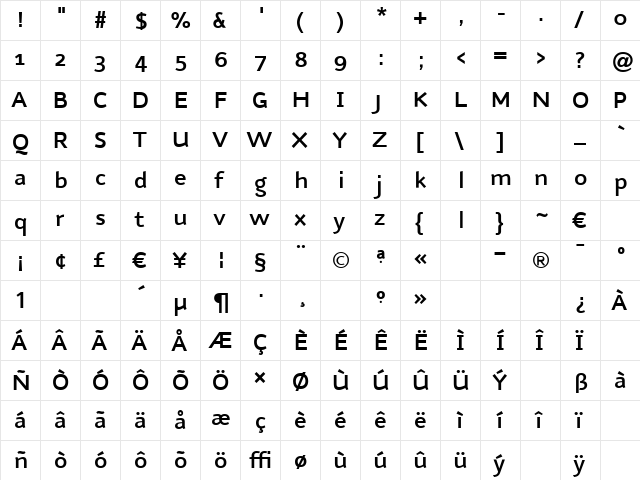
NubianDemiBold Regular Font Preview
NubianDemiBold Regular
NubianDemiBold Regular Font Details
Design Context for NubianDemiBold Typeface
NubianDemiBold offers clean, dependable letterforms without strong stylistic allegiance, making it a practical choice for designers who need flexibility. Its bold stroke weight gives it real presence on the page.